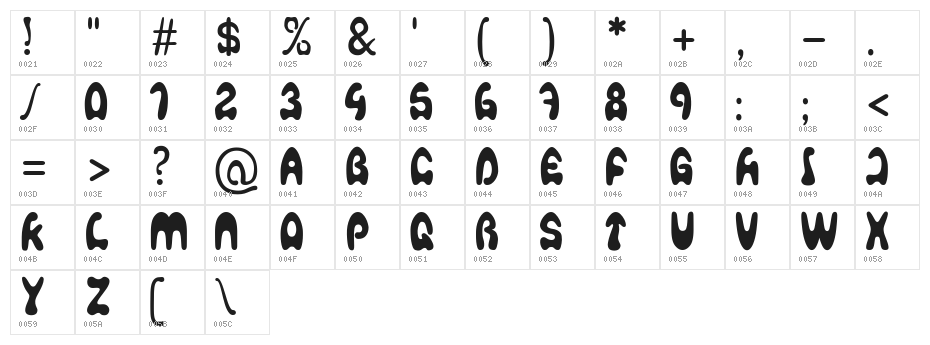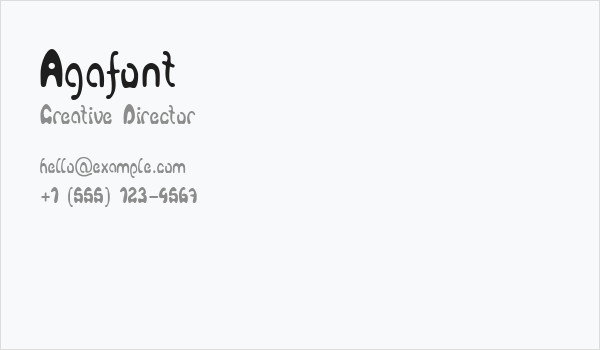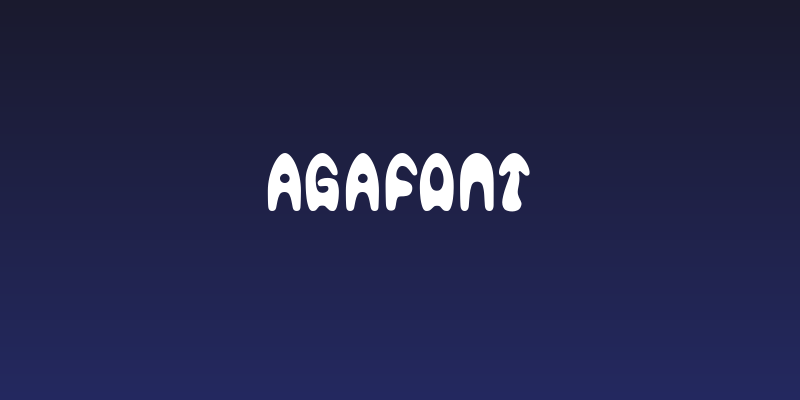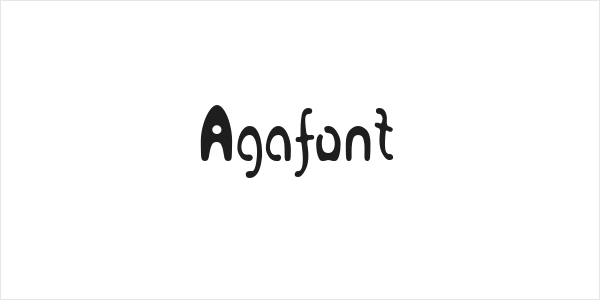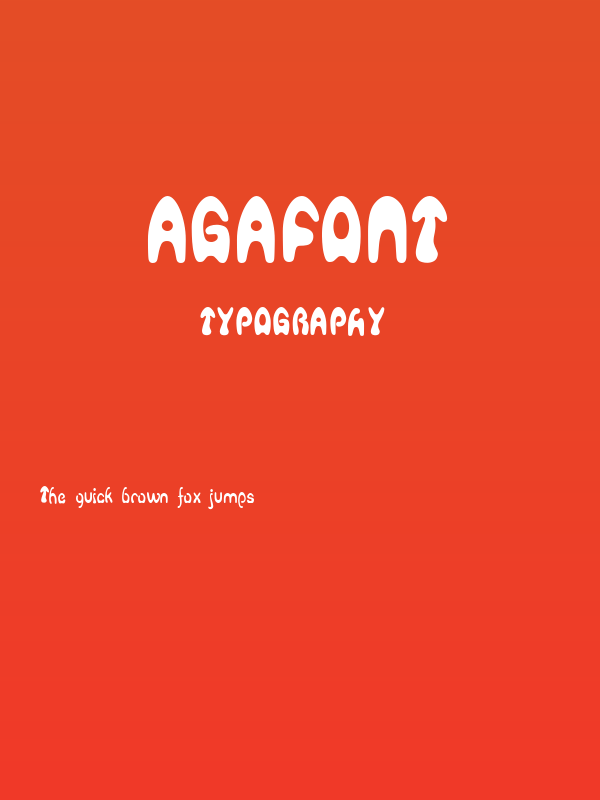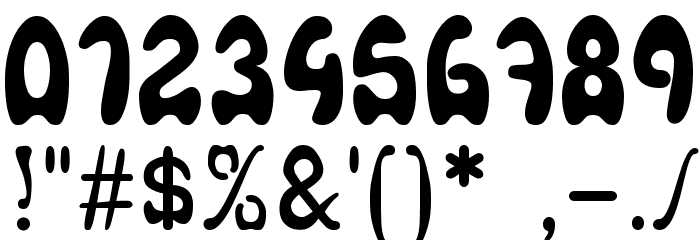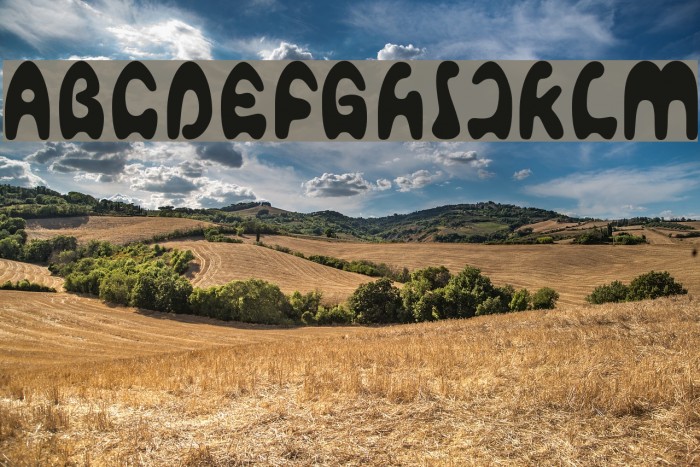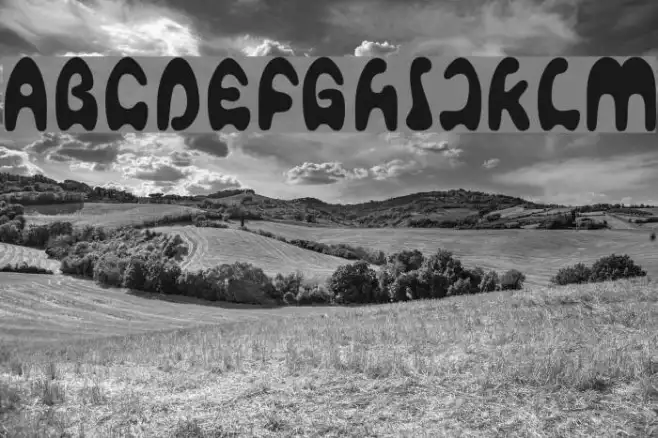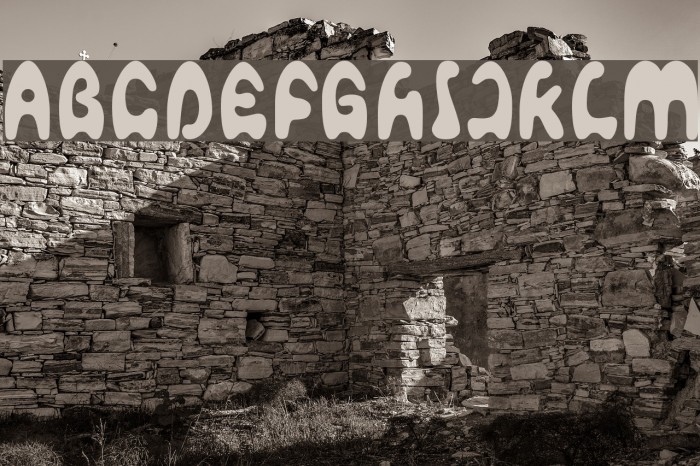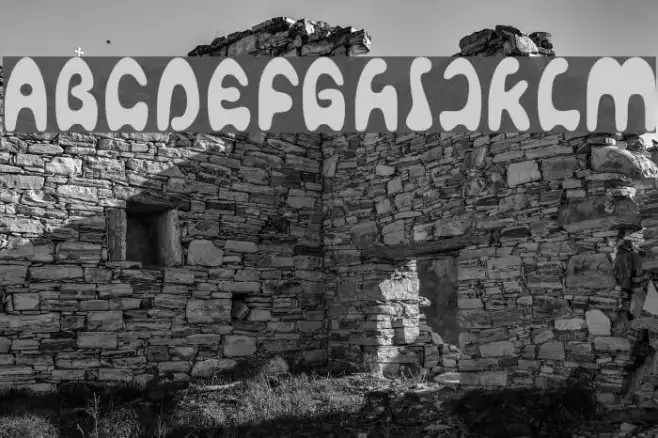
Agafont Font
Agafont Description
This font features a playful and bold design with rounded, organic shapes that give it a unique and whimsical appearance. The characters are thick and have a bubbly, almost liquid-like form, which adds a sense of movement and fun. The uppercase and lowercase letters maintain a consistent style, with the uppercase being slightly more exaggerated in their curves. Numbers and special characters follow the same design principles, ensuring a cohesive look across all glyphs. This font is highly decorative and stands out due to its unconventional and artistic style.
| Use Case | Logos, Headlines, Posters |
| Proposed Projects | Ideal for children's books, playful branding, party invitations, and creative posters. |